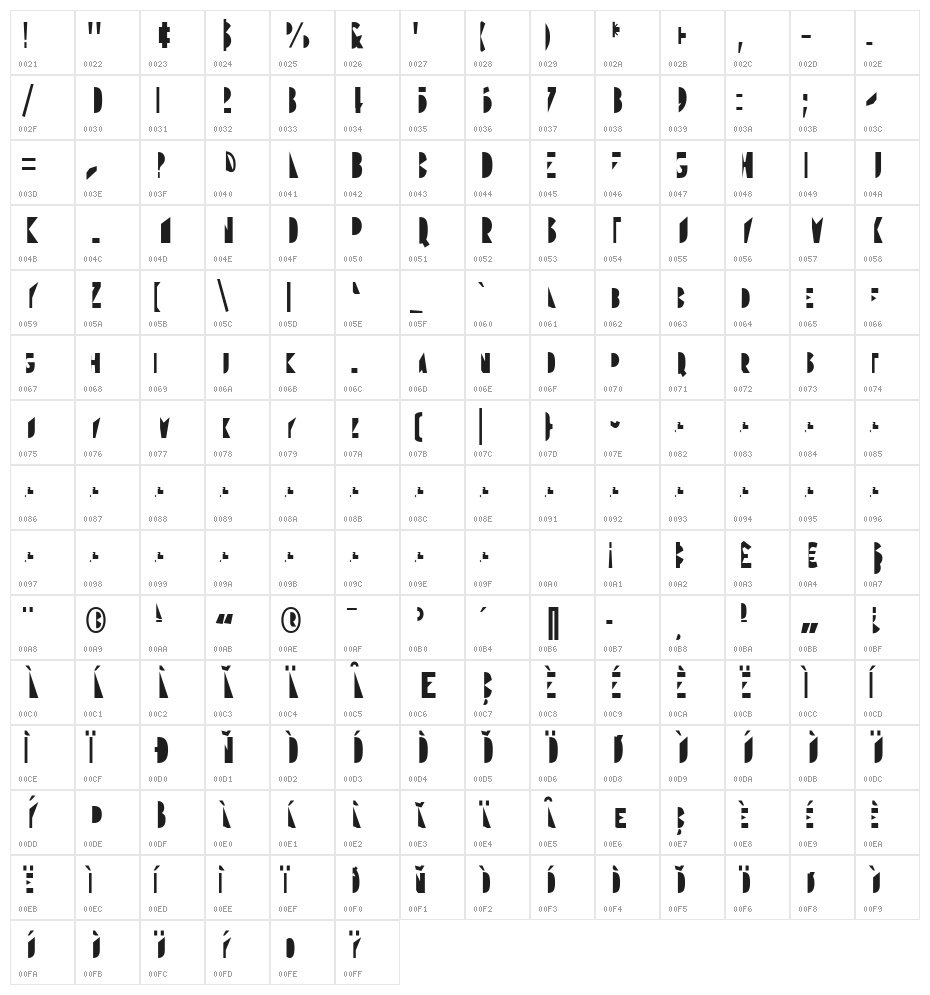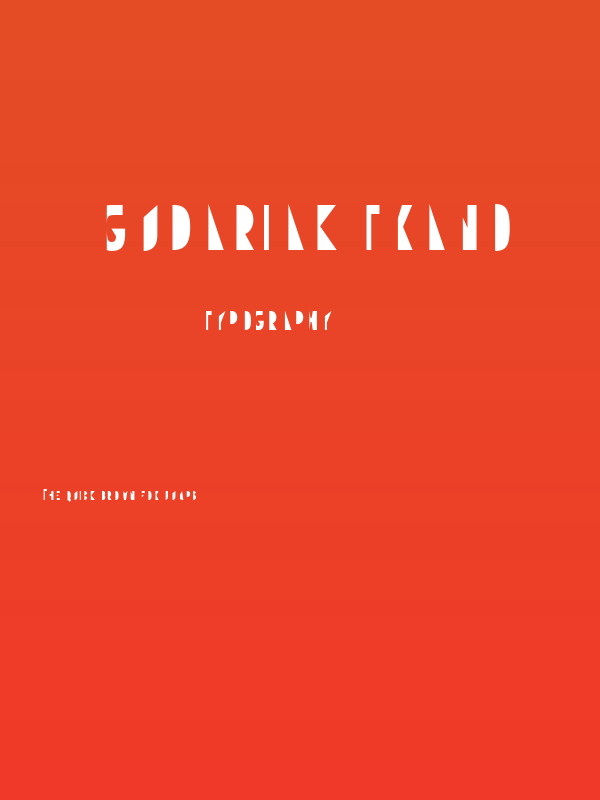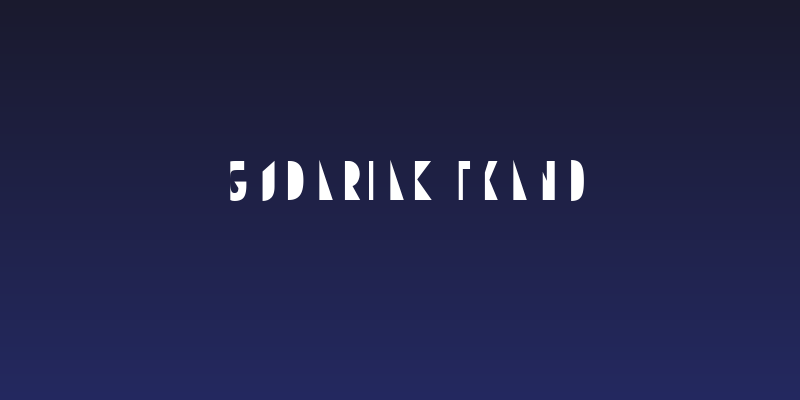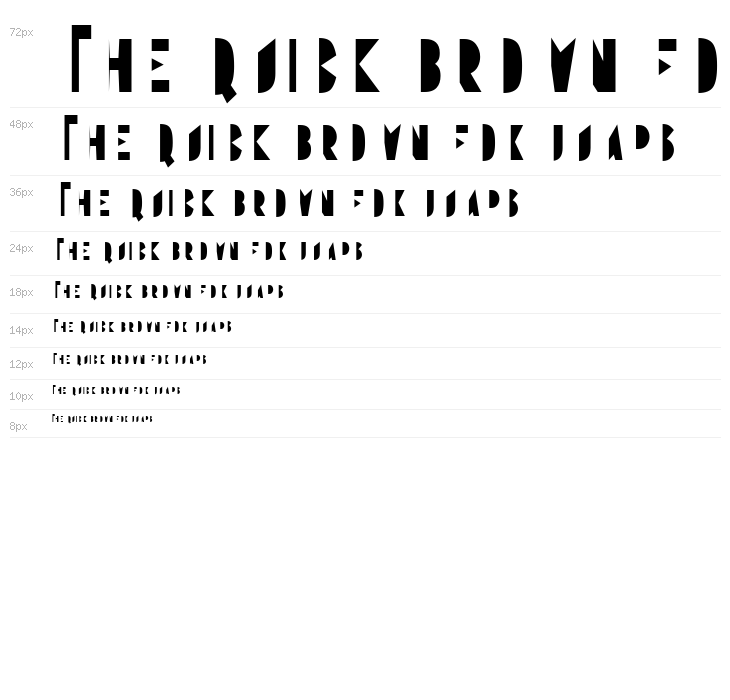
Gudariak txano Font
Gudariak txano Description
This font is a bold and striking display typeface characterized by its geometric and angular shapes. The letters are constructed with sharp edges and a strong presence, making it highly suitable for attention-grabbing headlines and titles. The uppercase letters are particularly distinctive, with a modern and edgy aesthetic. The font's unique style is achieved through its use of negative space and bold, solid forms, creating a sense of movement and dynamism. The numbers and special characters maintain this bold, geometric style, ensuring consistency across all characters.
Proposed ProjectsIdeal for modern branding, poster design, album covers, and any project requiring a strong visual impact.